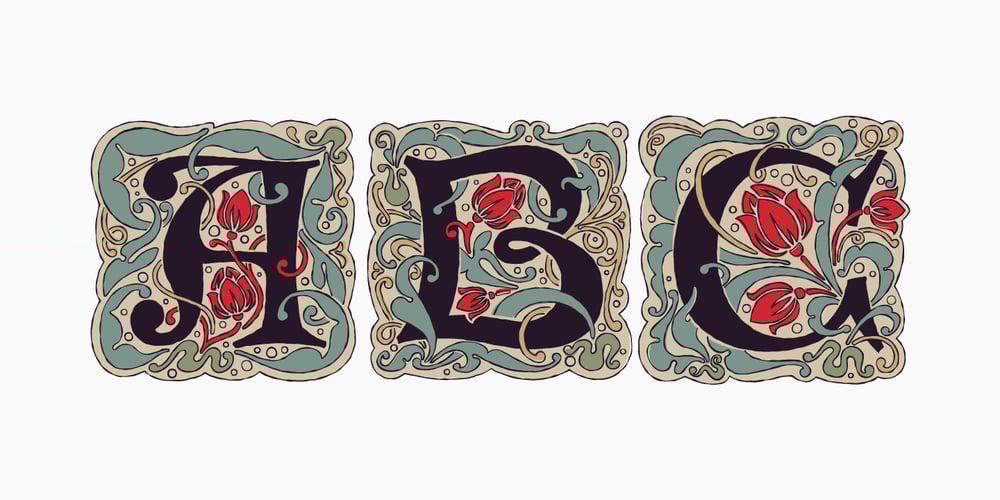
Antique Initials
Antique Initials font
Antique Initials Font Family was designed by Roman Korolev and published by Kaer. Antique Initials contains 2 styles and family package options. Hello, friends! I have a good news! At last I have finished working on my Antique Initials color font. Wow!It was a long and hard work because every initial is unique. I sketched each letter of the font very scrupulously from scratch. Each letter is uniquely designed and has a unique flower pattern in the background. I used a pale old color palette to color these letters.There came out two font variants: a black and white and a nice colored one. The font contains initials from A to Z (26 characters, lowercase glyphs are same).I hope you enjoy this font. Follow my shop to receive updates of products and the very hottest news! If you have any question or issue, please contact me: kaer.pro@gmail.com Please request to add additional characters and glyphs if you need! Thank you!You can use color fonts in PS since CC 2017, AI since CC 2018, ID since CC 2019, QuarkXPress since 2018, Pixelmator, Sketch, Affinity Designer Since macOS 10.14 Mojave, Paint.NET Windows only.Please note that the Canva do not support color fonts!